Sebale
Introducing : Sebale, a font brimming with delightful whimsy, injects a playful touch into your designs. Sebale’s design is not only handwritten but also exudes charming whimsy, making it an ideal choice for a variety of creative projects. Download
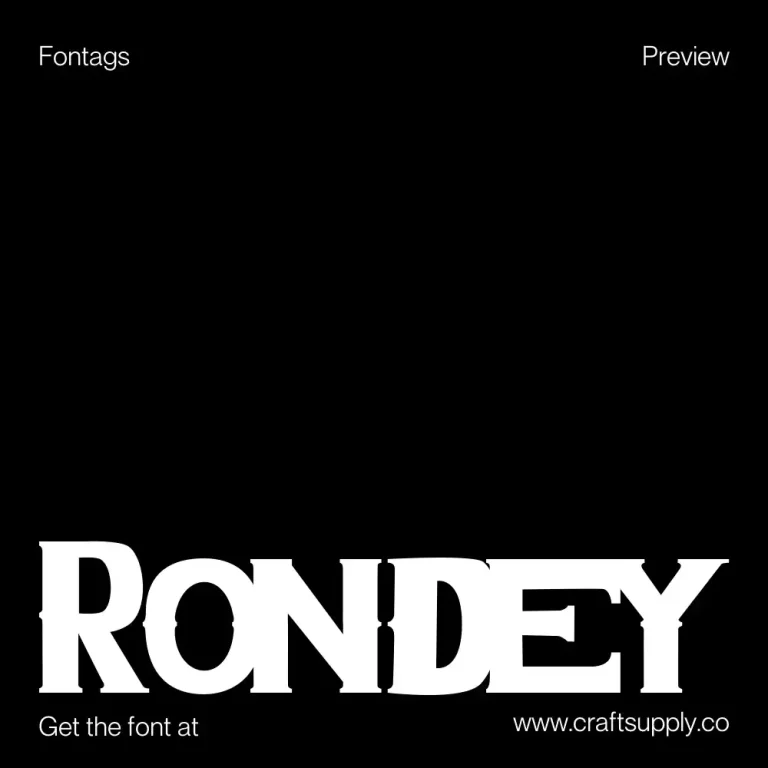
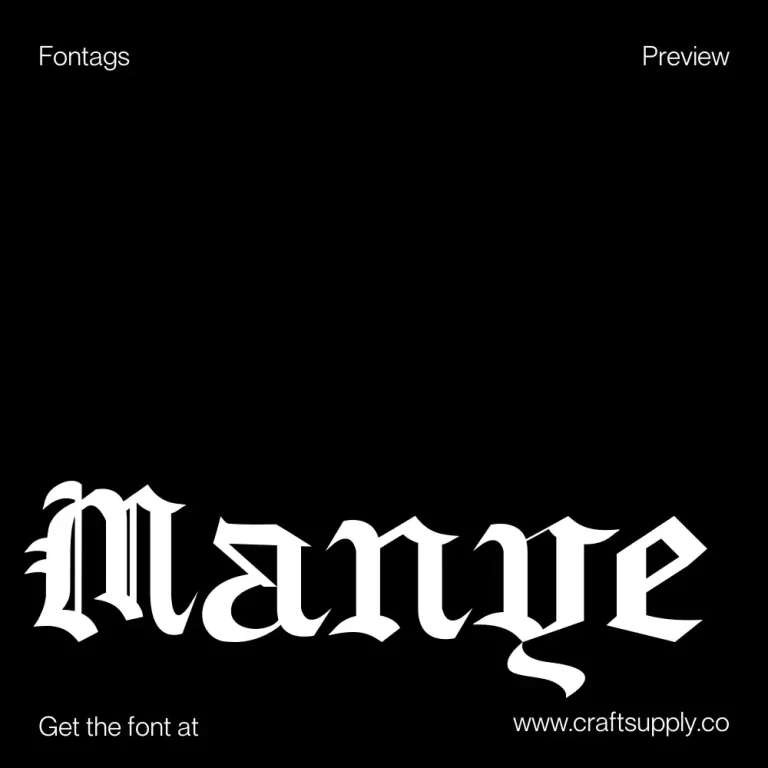Rondey
Introducing : Rondey is a captivating Display Font that combines bold serifs with a unique twist, making it ideal for display purposes. Rondey’s design exudes an elegant charm that’s perfect for grabbing attention in various display contexts. Download
Manye
Introducing : Manye stands out as a captivating Blackletter Font, adding a touch of distinctiveness to your display and design requirements. Manye’s design exudes a distinctive elegance, making it the perfect choice for attention-grabbing displays. Download
Raimes
Introducing : Meet Raimes, the Script Typeface that effortlessly infuses charm and playfulness into your designs. Raimes boasts a whimsical elegance that’s perfect for a wide range of creative projects, adding a delightful touch of fun to your content. Download
Cladey
Introducing : Cladey is a remarkable Display Typeface with a unique twist that sets it apart. Its central serif feature is the key to its stunning appearance. Download
Namile
Introducing : Namile, our Playful Sans Serif font, is a delightful departure from the ordinary. Its quirkiness and fun factor set it apart from the crowd. Download
Pedroc
Introducing : Pedroc is a Future-Inspired Display Typeface, a captivating Display Typeface, is born from the inspiration of future technology, thus infusing an industrial touch into its design. Download
Magent
Introducing : Magent sets itself apart as a striking Display Typeface that seamlessly merges the timeless elegance of serifs with the contemporary allure of sans serifs. This extraordinary fusion not only shatters monotony but also injects a vibrant energy into your designs.…
Campeno
Introducing : Let’s step into the world of Campeno, a Geometric Sans Serif font that embodies precision and order. This font is the epitome of geometric perfection, making it an ideal choice for various editorial applications. Download
Galeiya
Introducing : Step into the enchanting world of Galeiya – Cute Script Font, where adorable playfulness takes center stage. This font is the embodiment of girly charm and fun. Galeiya’s joyful whimsy adds a delightful and whimsical touch to your…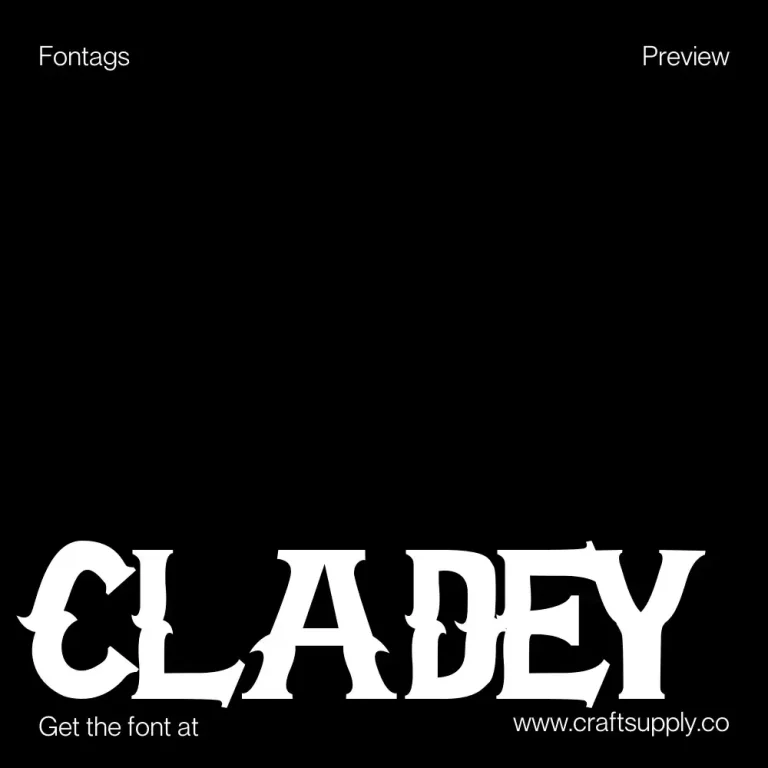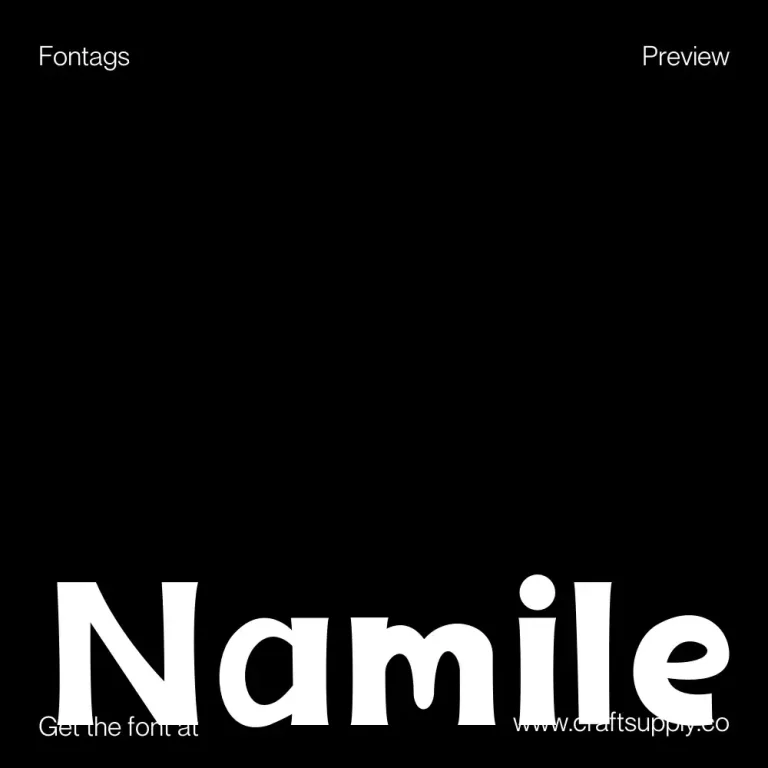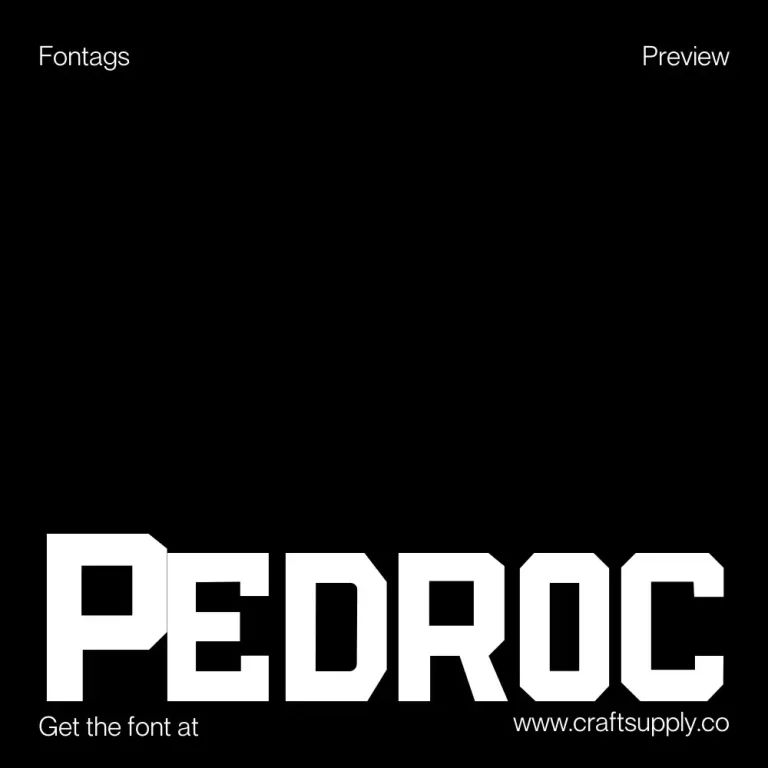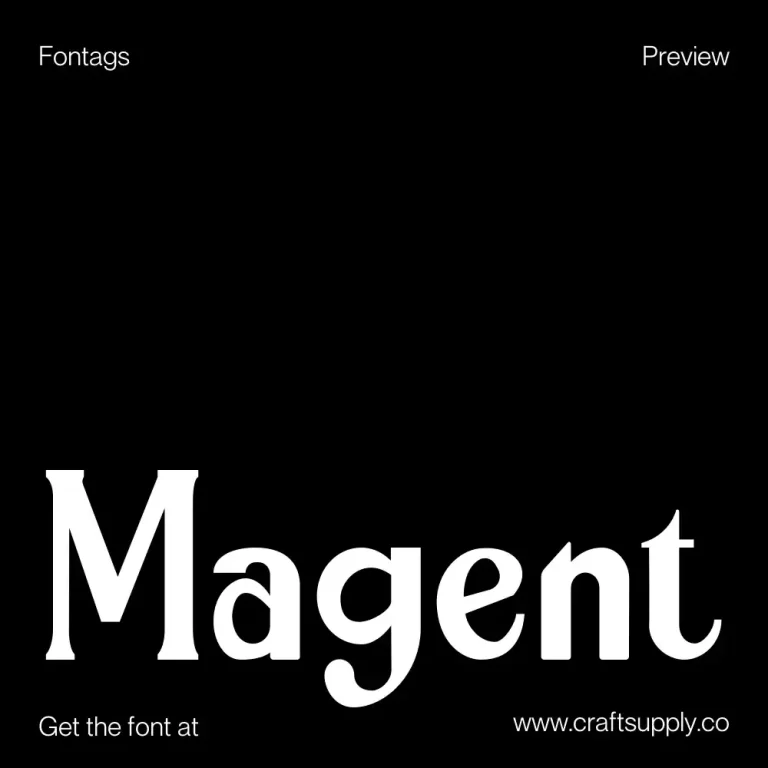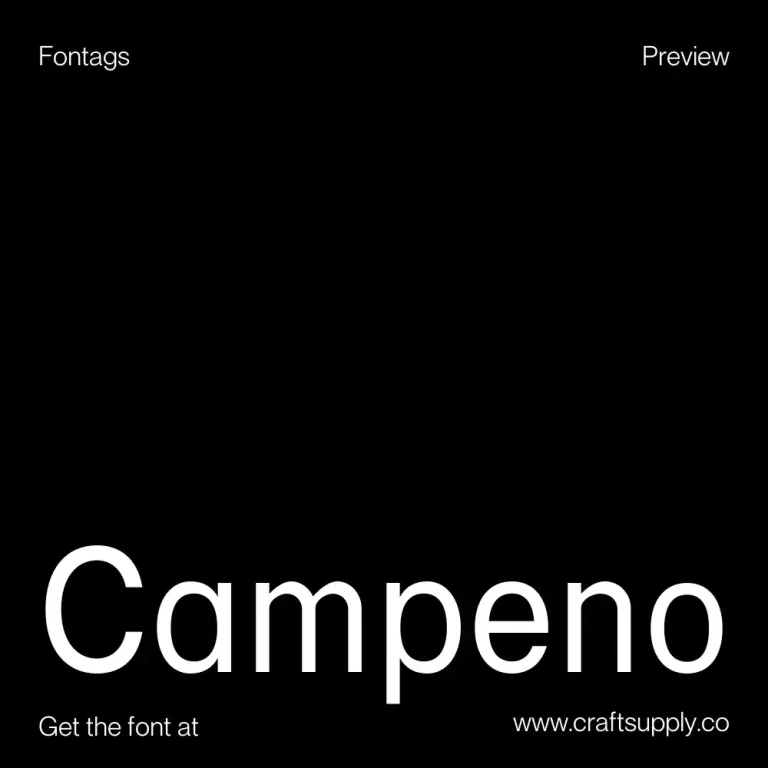